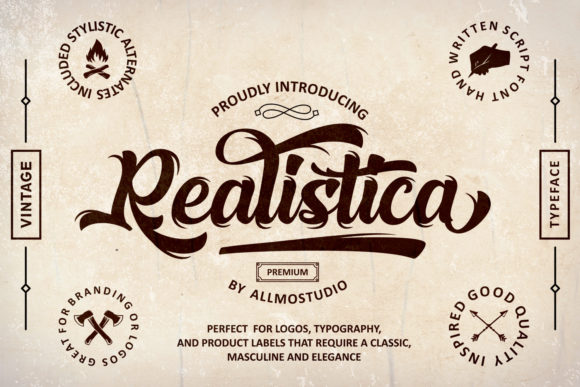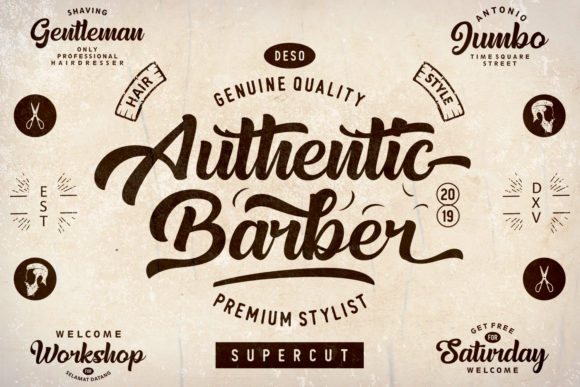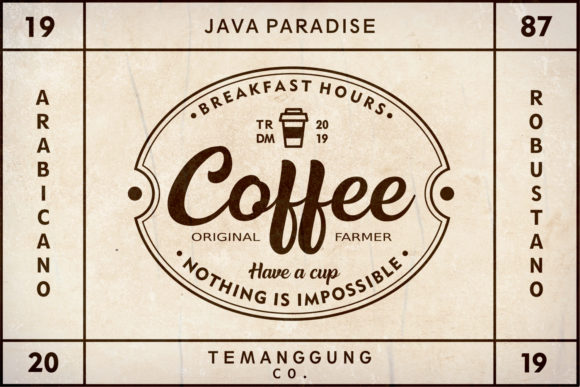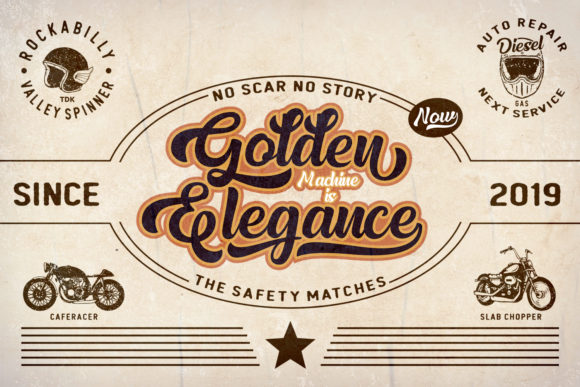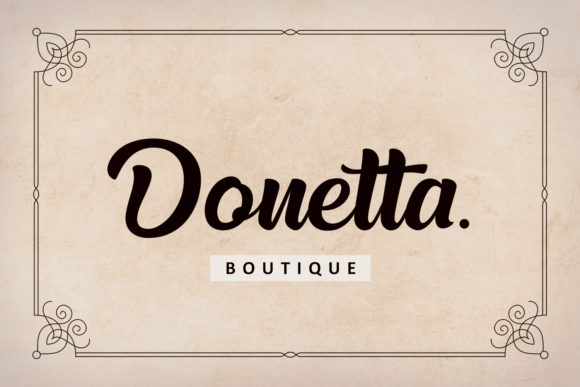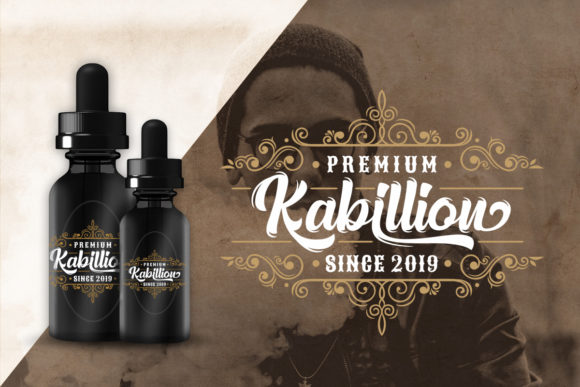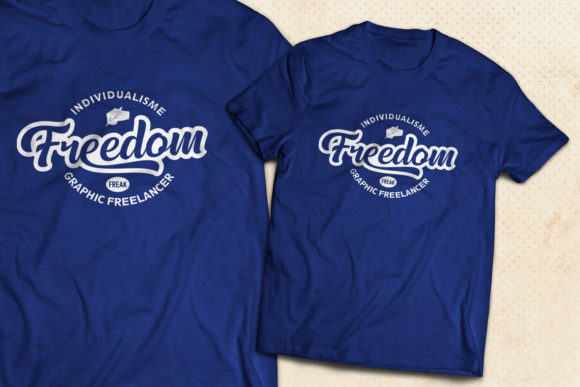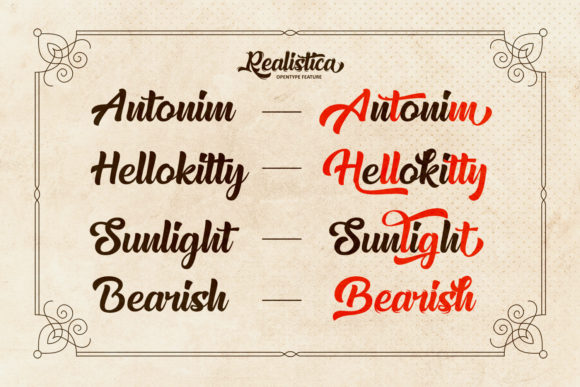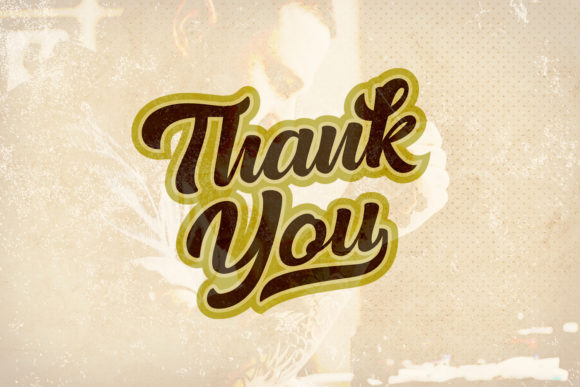
Realistica Font
About Realistica Font
Realistica updates a striking vintage font with a contemporary feel. It will add a powerful and energetic vibe to any design project!